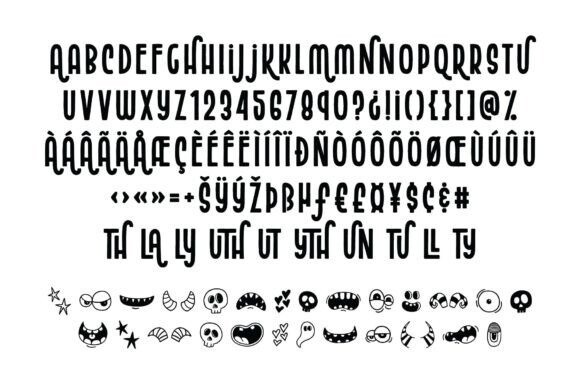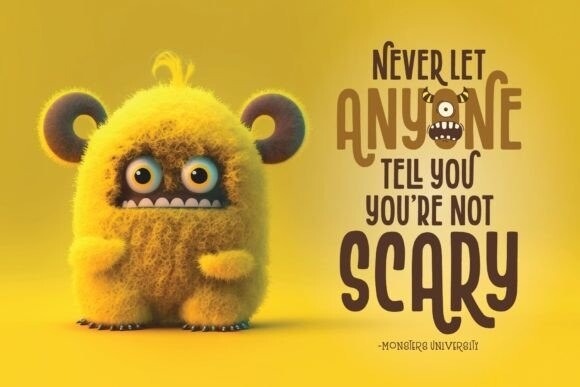
Silly Creature Font
Silly Creature Font, a captivating, all caps, and condensed font that packs a playful and friendly energy into each letter form. It’s a whimsical addition to any project with its collection of alternate characters and beautifully crafted ligatures. It comes with a set of Silly Creature Doodles you can use to decorate the letters and create some fun typography.